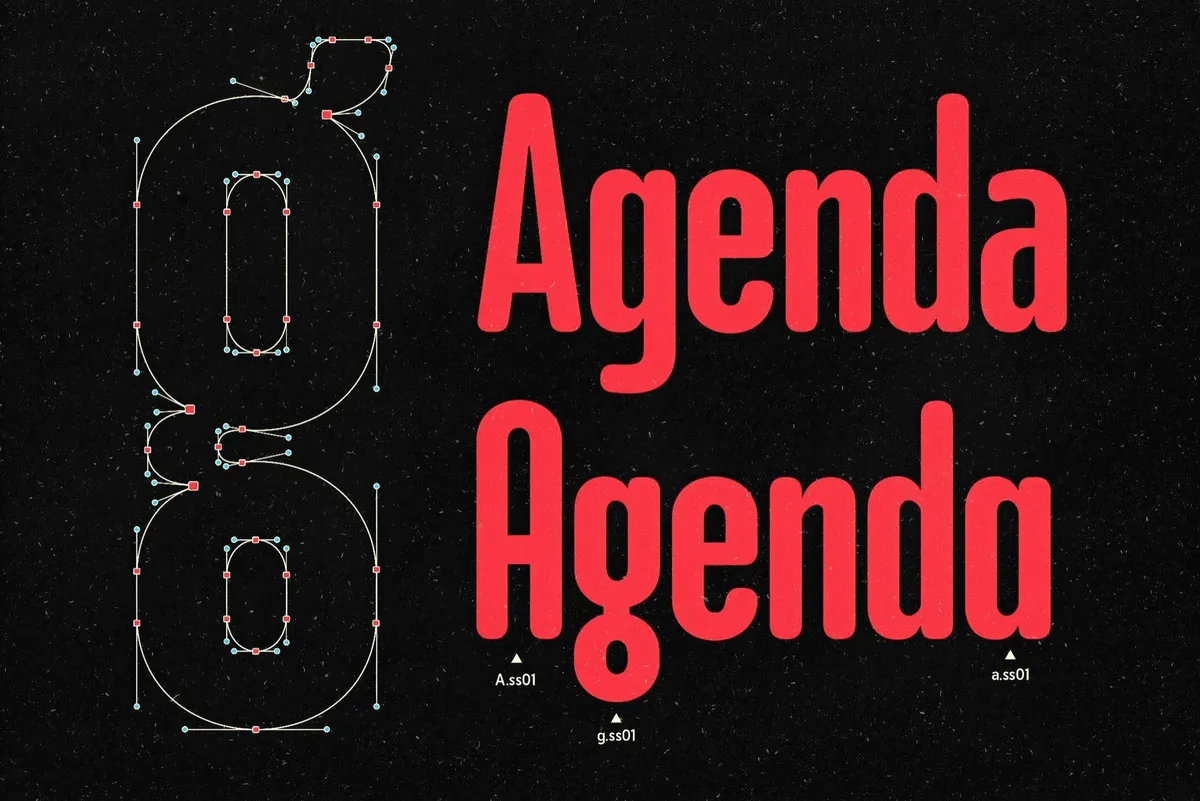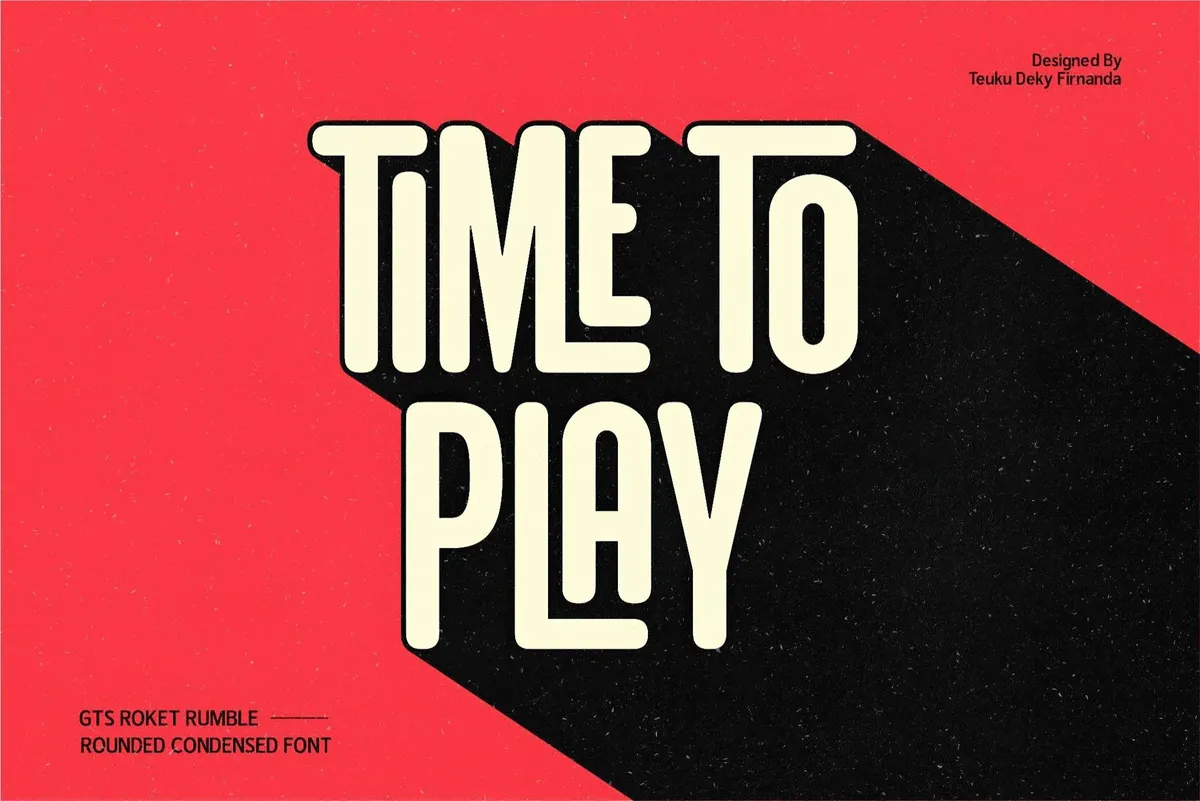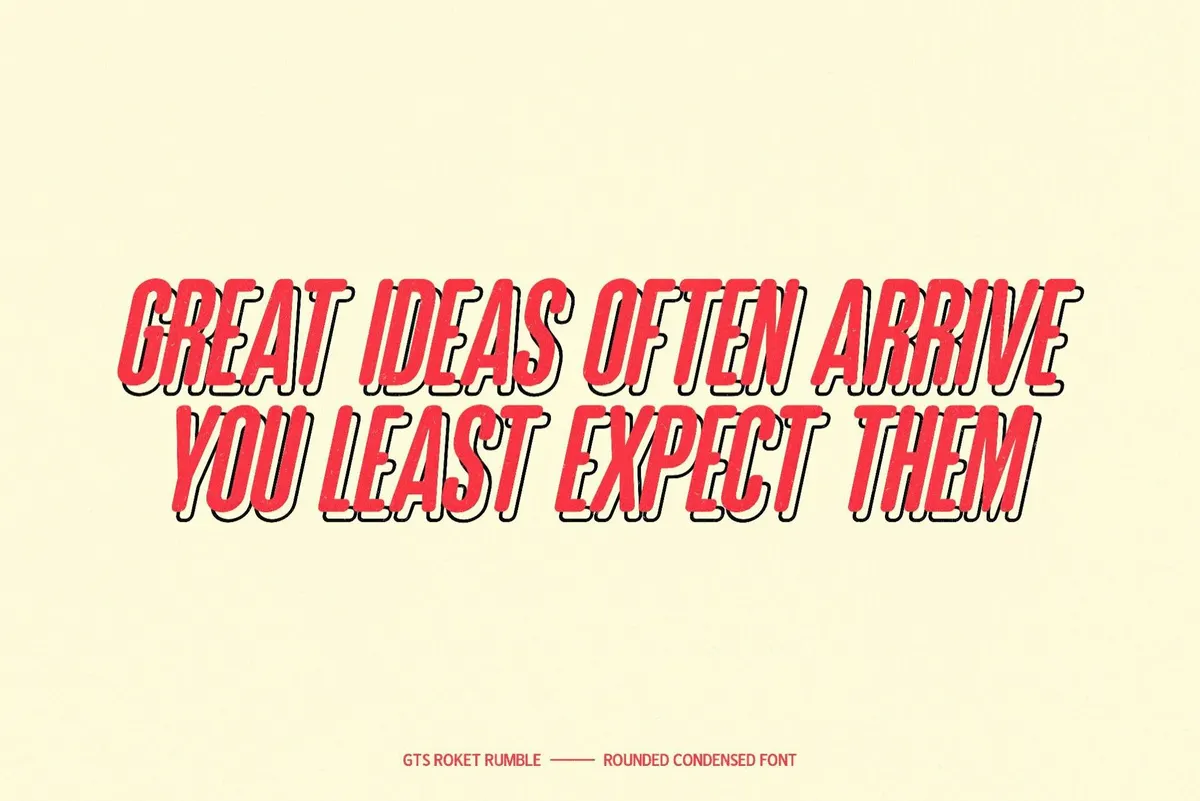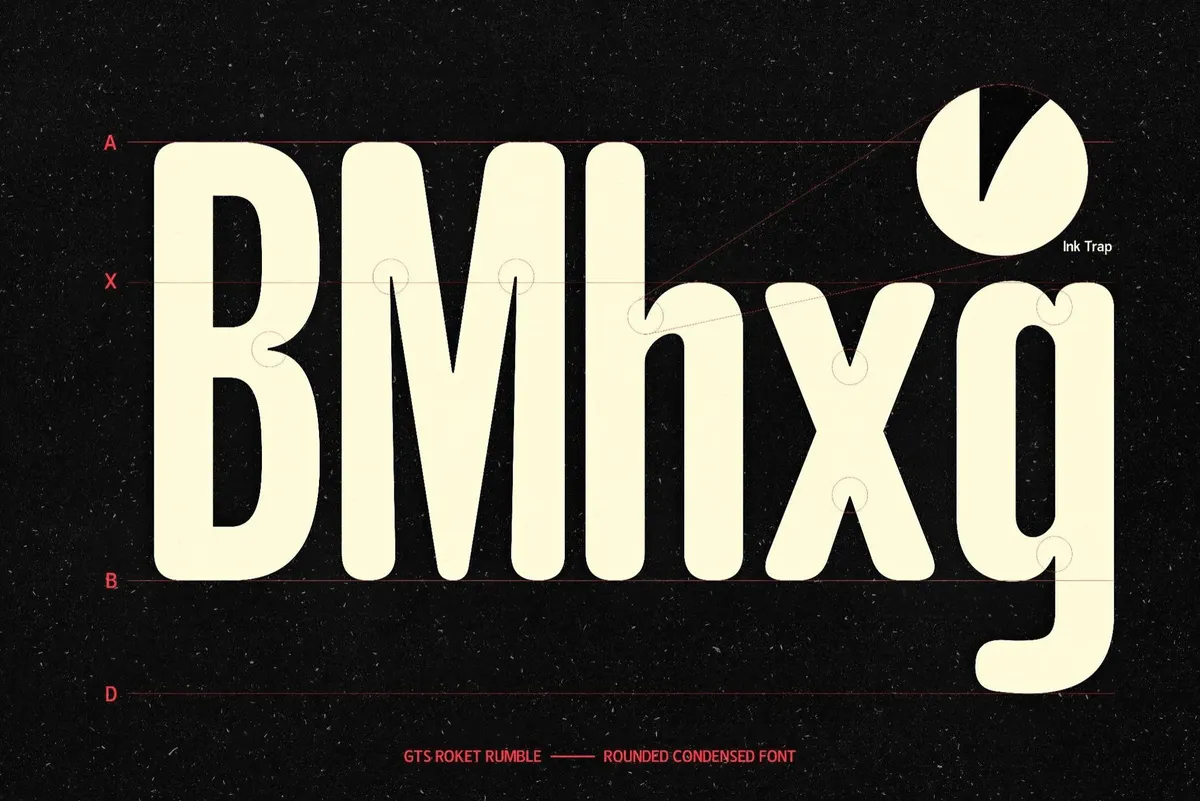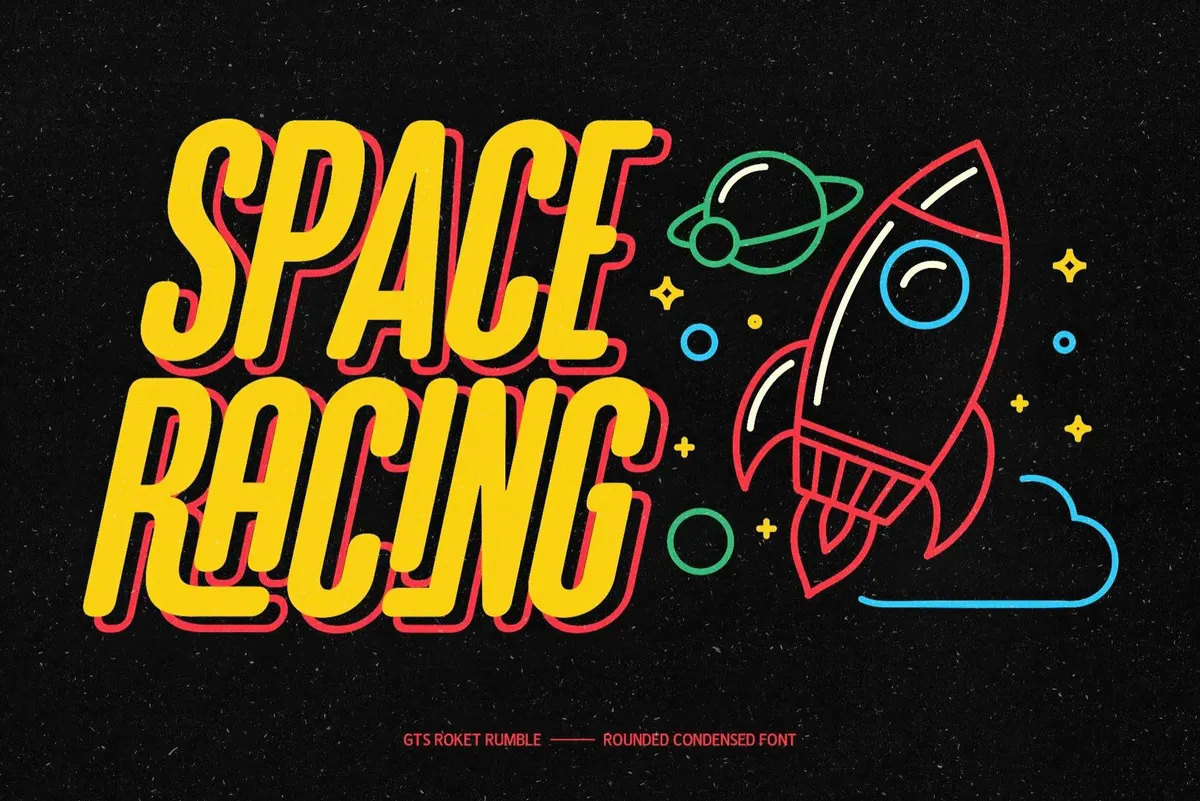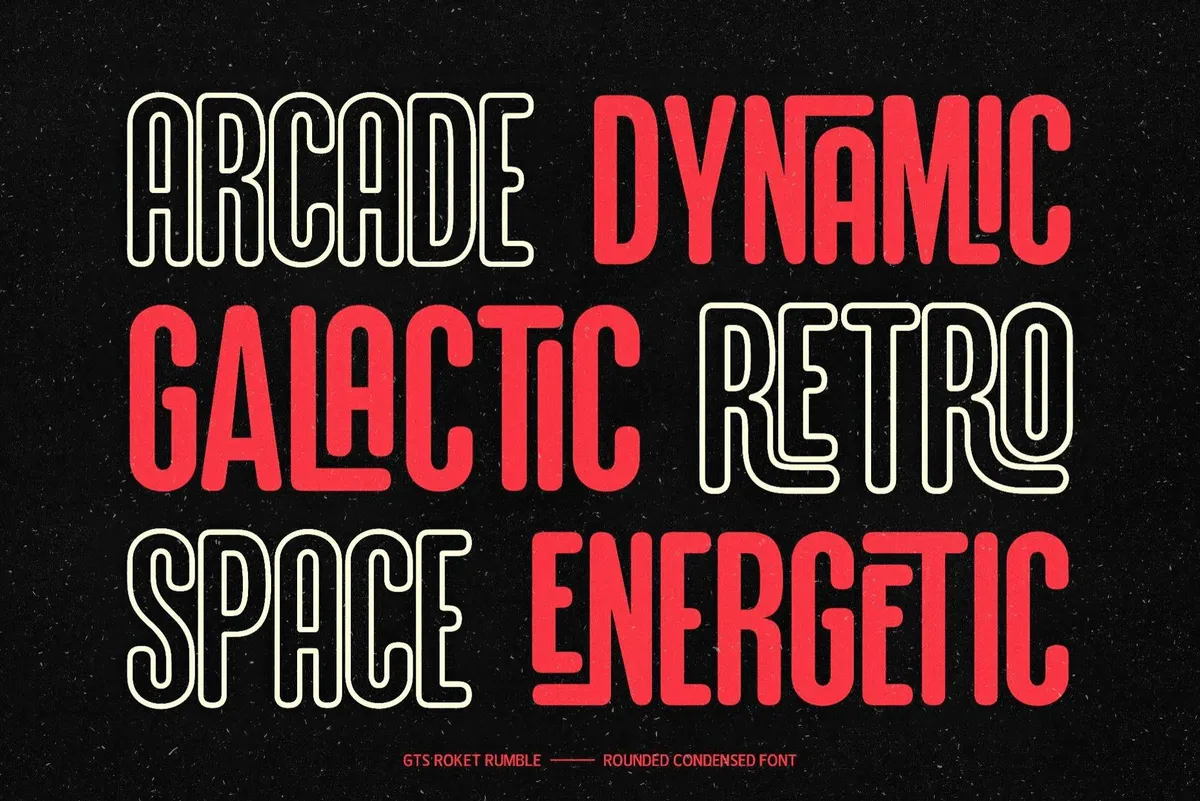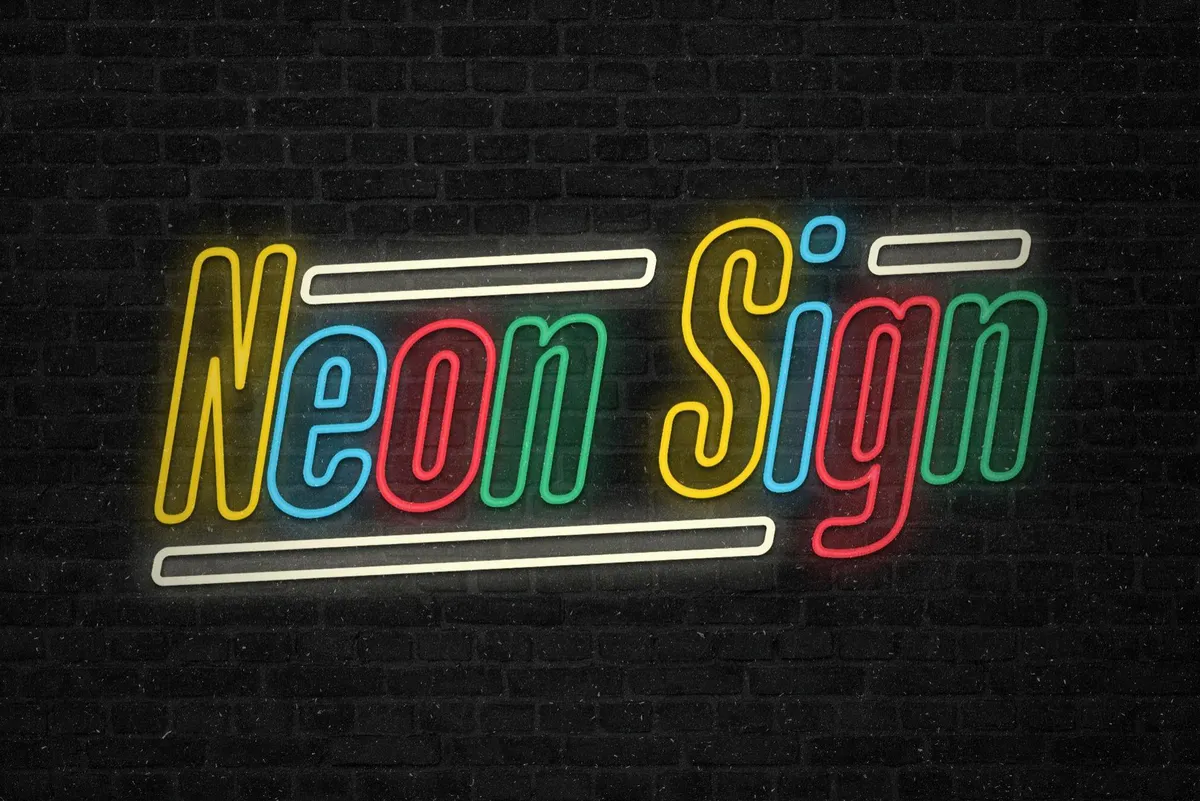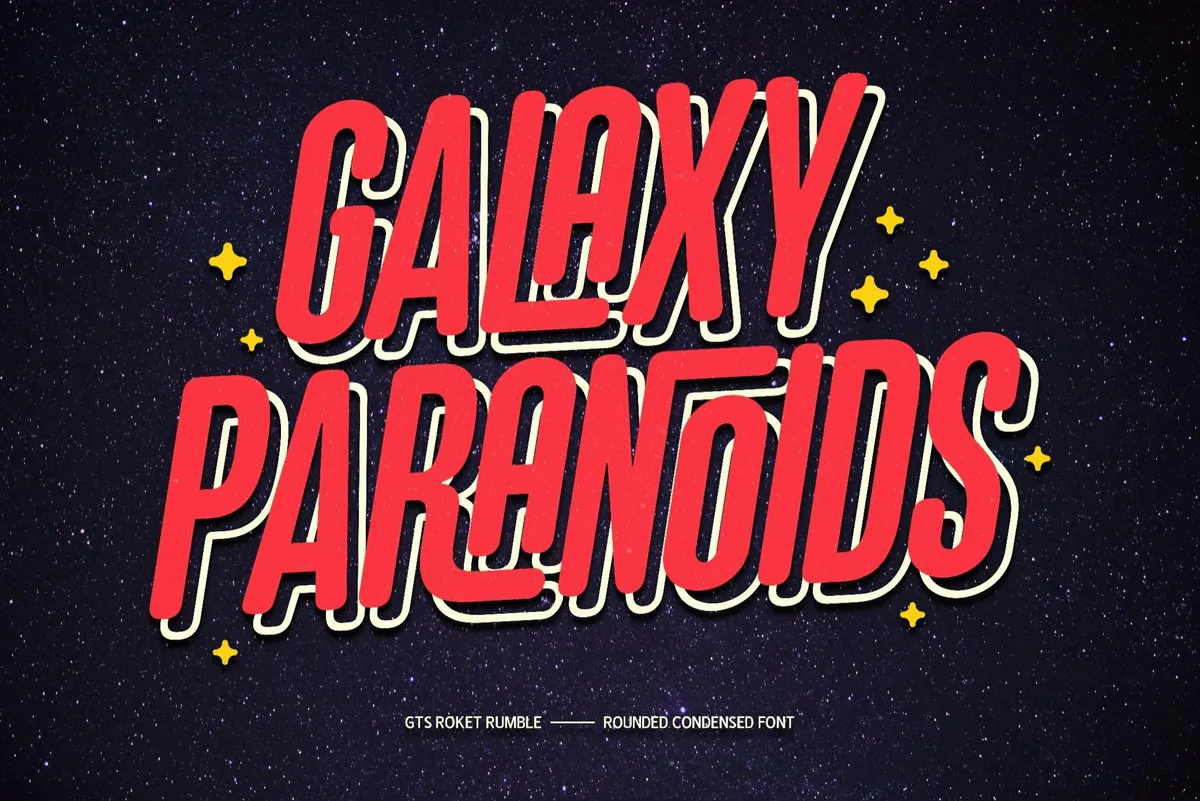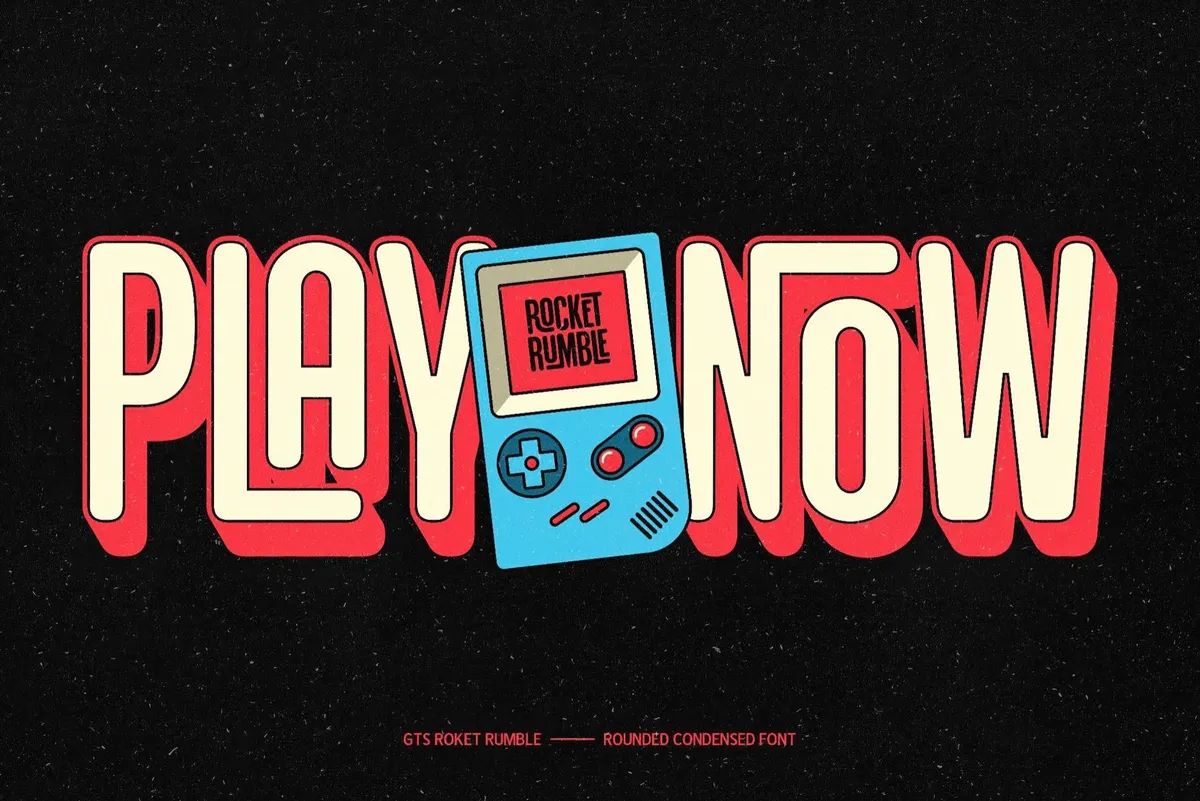
GTS Rocket Rumble — Retro Condensed Font
GTS Rocket Rumble is a retro-inspired, rounded, condensed typeface. It comes in four styles: regular plain, regular oblique, outline plain, and outline oblique. Each style has a complete character set, including multilingual support for Latin-based languages.
The font is particularly well-suited for neon-themed gaming graphics, delivering a dynamic, glowing look that enhances any digital or interactive design.